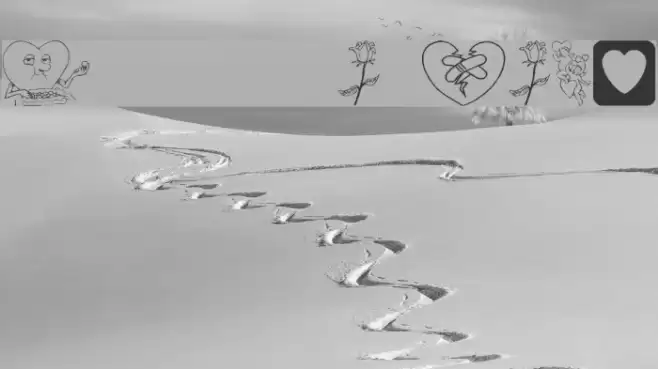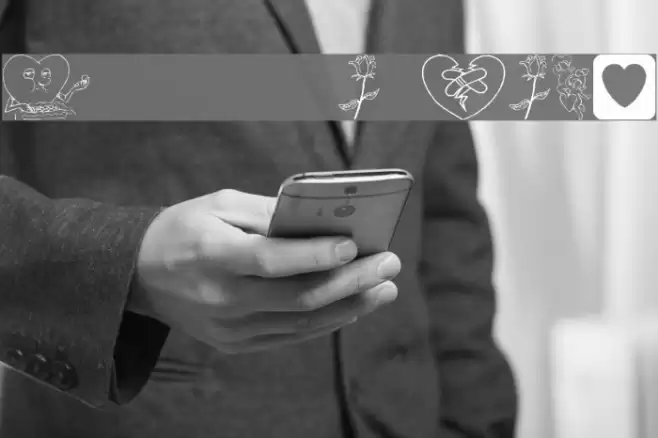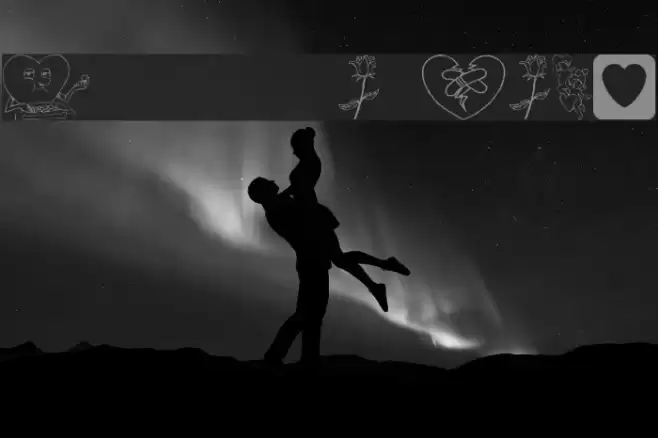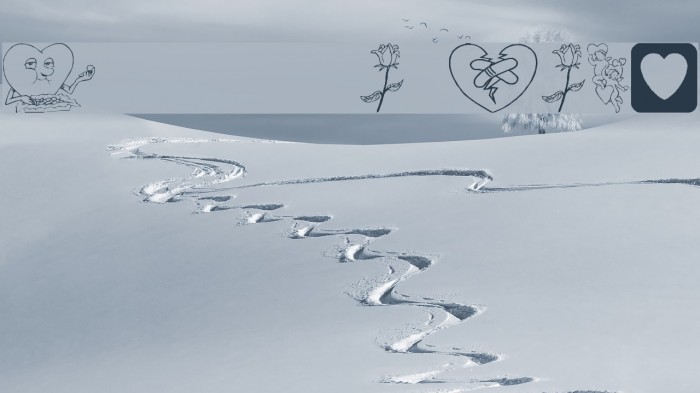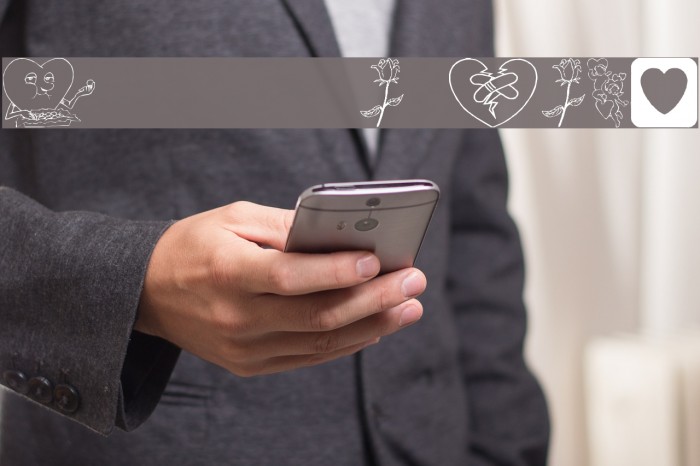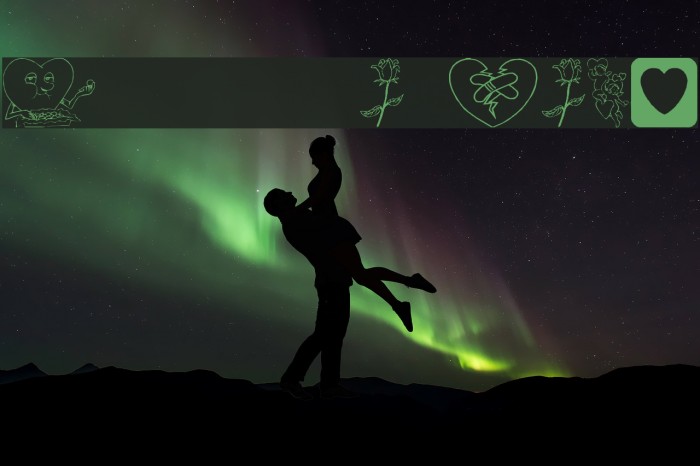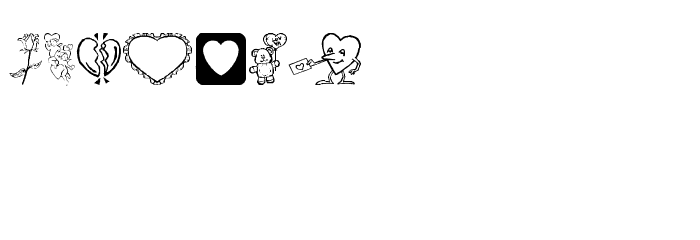
Luvya Babe Font
Luvya Babe Description
This is a decorative font featuring playful and whimsical heart-themed illustrations. Each character is represented by a unique design, incorporating elements such as hearts, cupids, and romantic motifs. The style is cartoonish and light-hearted, making it perfect for projects that require a fun and loving touch. The characters are detailed and intricate, with a variety of designs that capture the essence of romance and affection. This font is ideal for Valentine's Day projects, greeting cards, and any design that aims to convey warmth and love.
A decorative font with playful, heart-themed illustrations perfect for romantic projects from Valentine fonts.
- Proposed Projects: Ideal for Valentine's Day cards, wedding invitations, love-themed posters, and playful graphic designs.
- Use Case: Logos, Headlines, Greeting cards